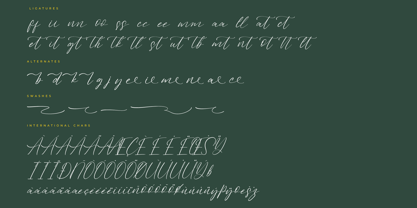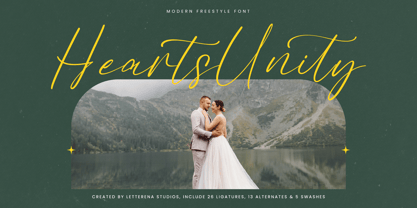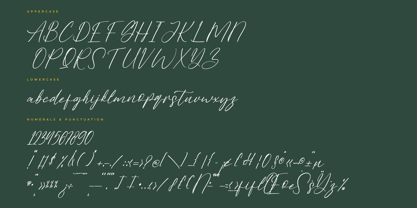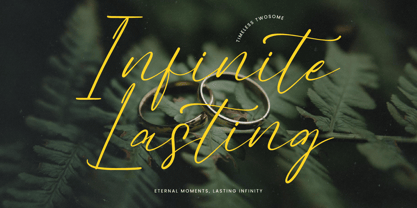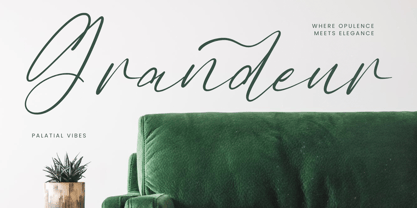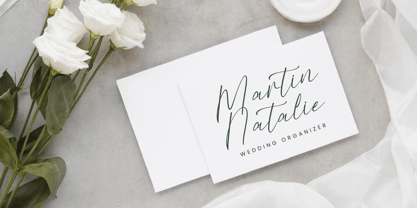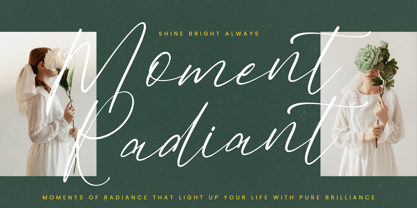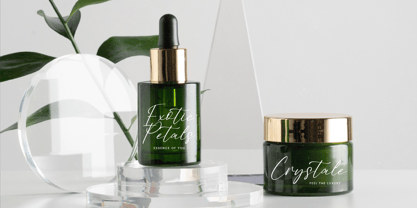
Hearts Unity
by Letterena Studios
The Hearts Unity Font Family was designed by Heru Utama Putra and published by Letterena Studios. Hearts Unity contains 2 styles and family package options. More about this family
Hearts Unity – Modern Freestyle Font , from Letterena, is a Luxury Script font, suitable for any projects such as: logos, branding projects, homeware designs, product packaging, mugs, quotes, posters, shopping bags, t-shirts, book covers, name card, invitation cards, greeting cards, label, photography, watermark, special events, and all your other luxury and beautiful projects that need a Luxury Script taste.